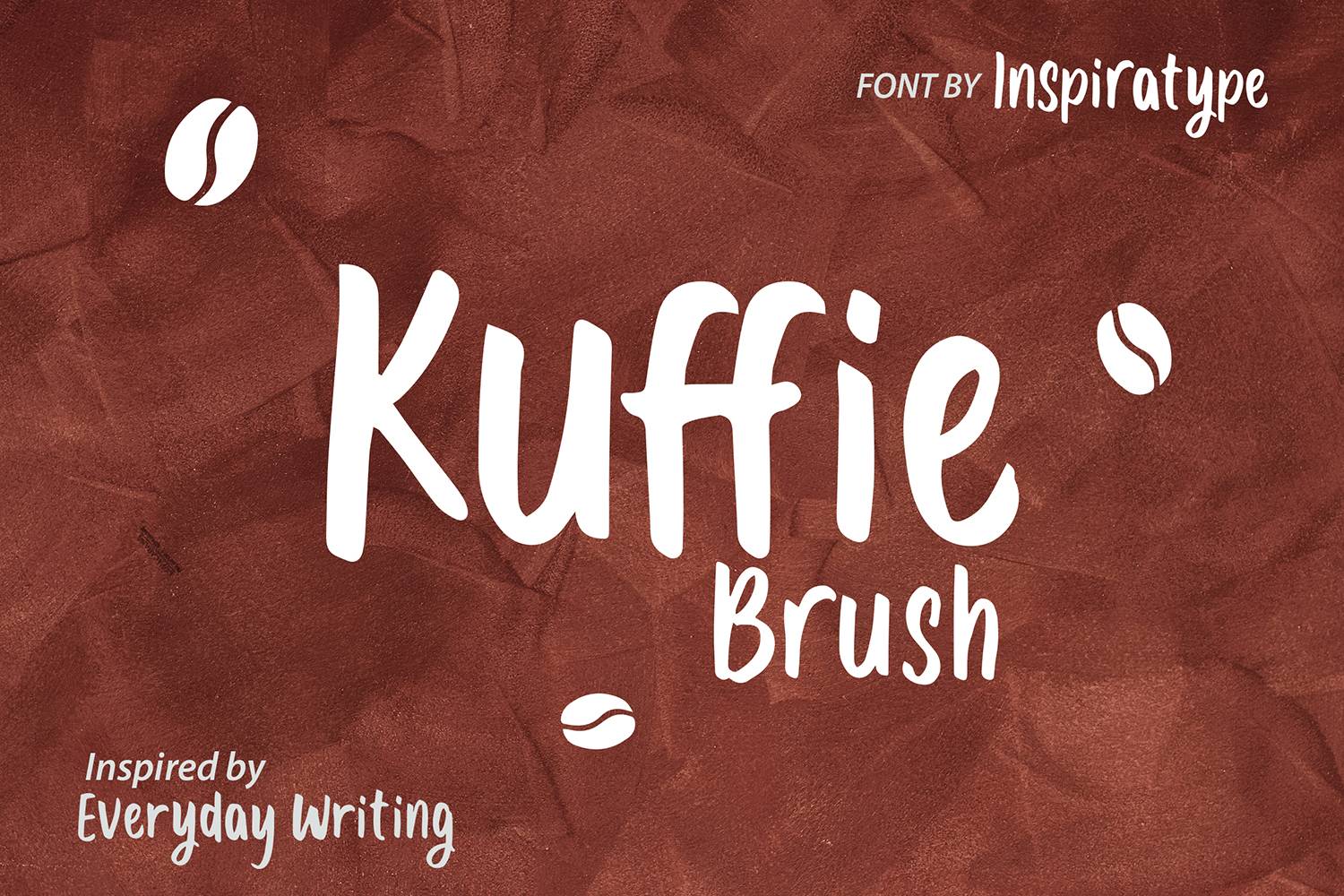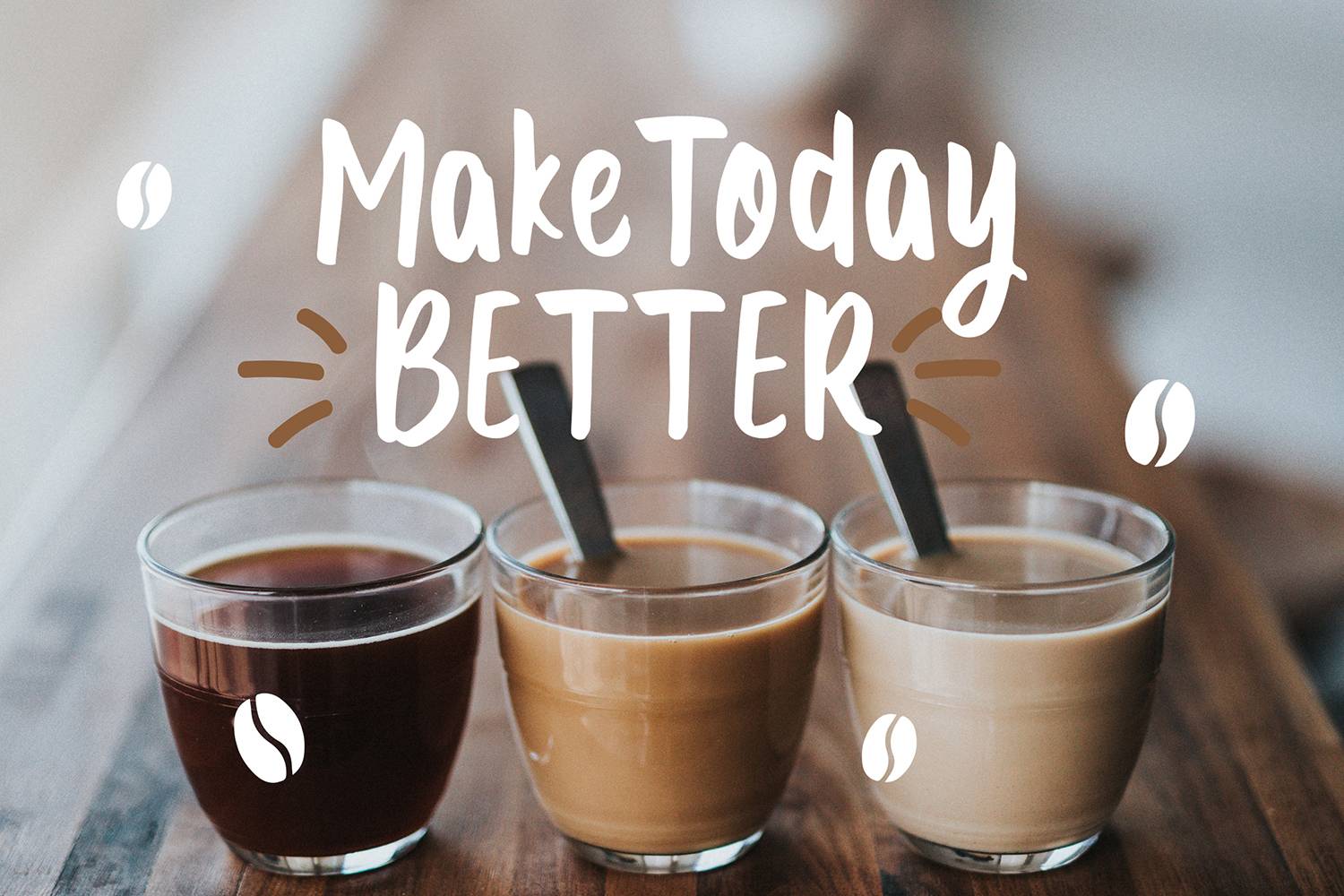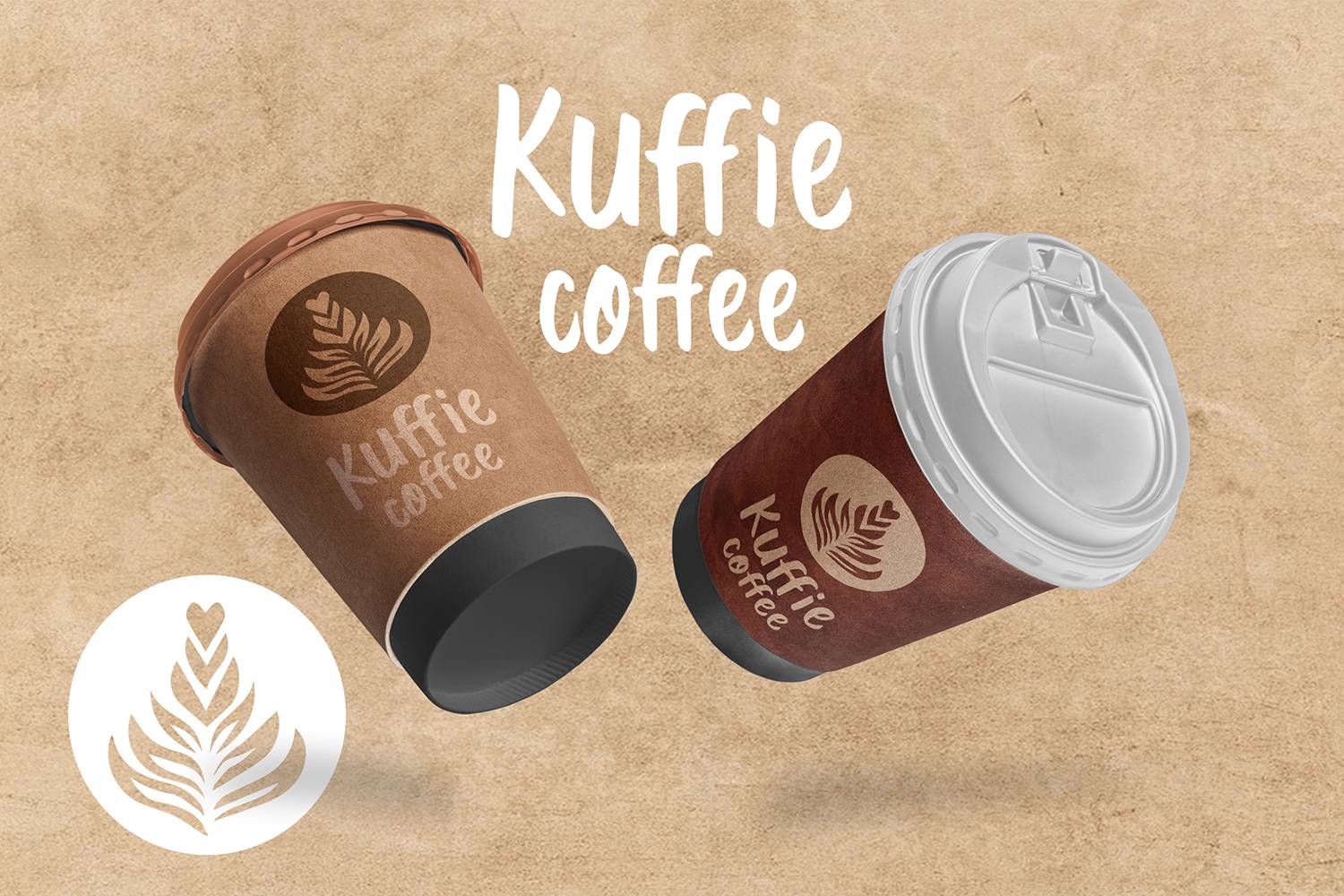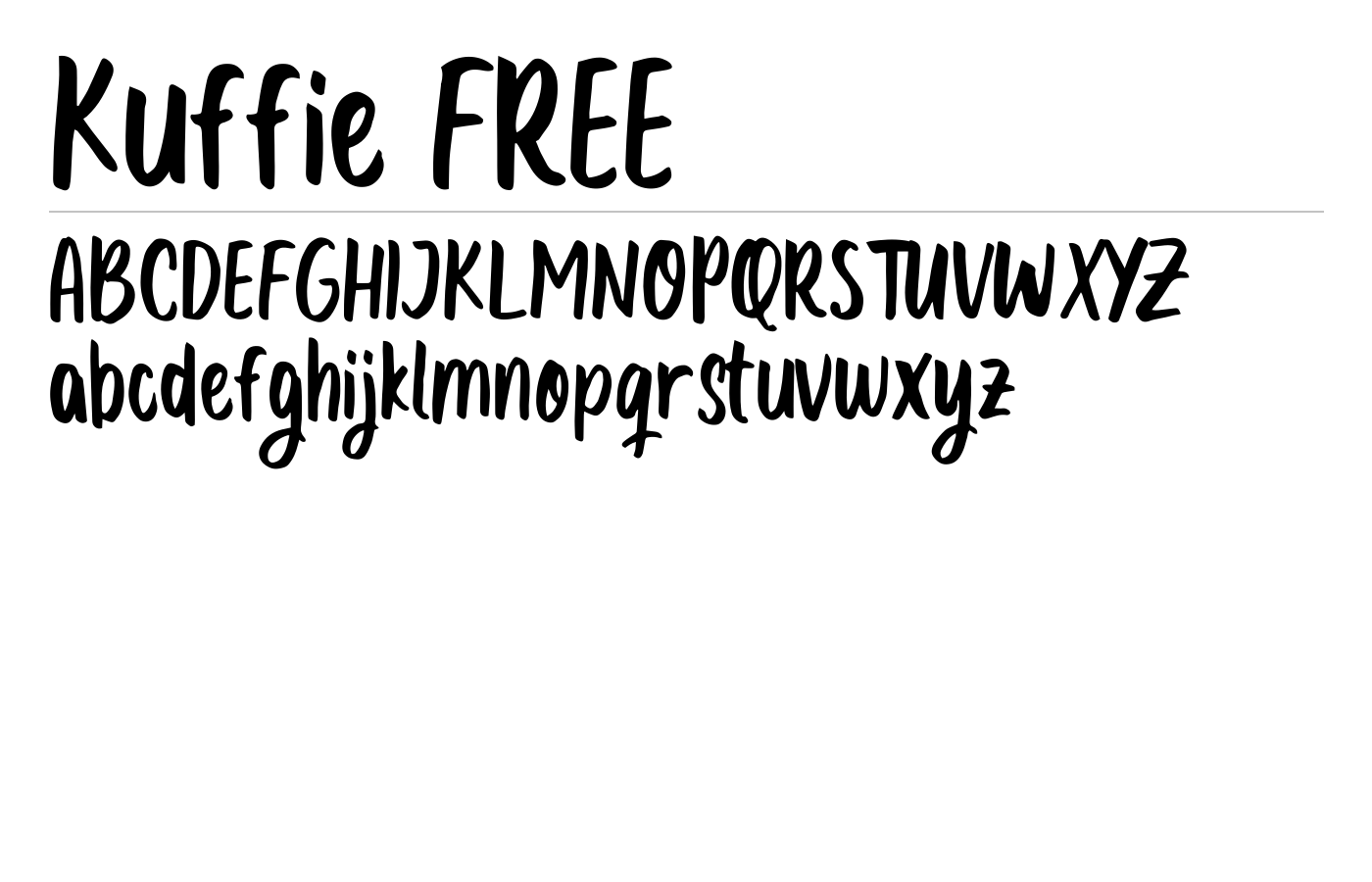
Kuffie Brush is a playful and casual handwritten brush font that features smooth, rounded strokes with a slightly irregular, organic feel. Its tall x-height and moderate weight make it highly legible, while the lively letterforms add a friendly and approachable character, perfect for creative projects, branding, and informal headlines. This font works well in designs that aim to convey warmth, creativity, and a personal touch.
Kuffie Brush Font
About Kuffie Brush Font
| Font family | Kuffie Brush Font |
| Designer | Inspiratype |